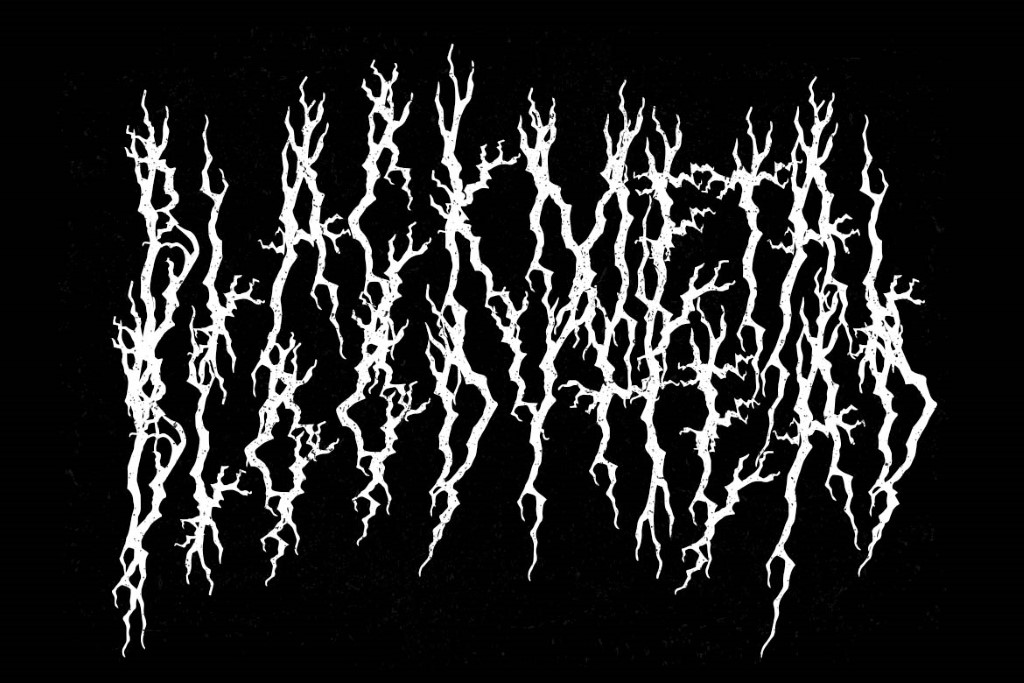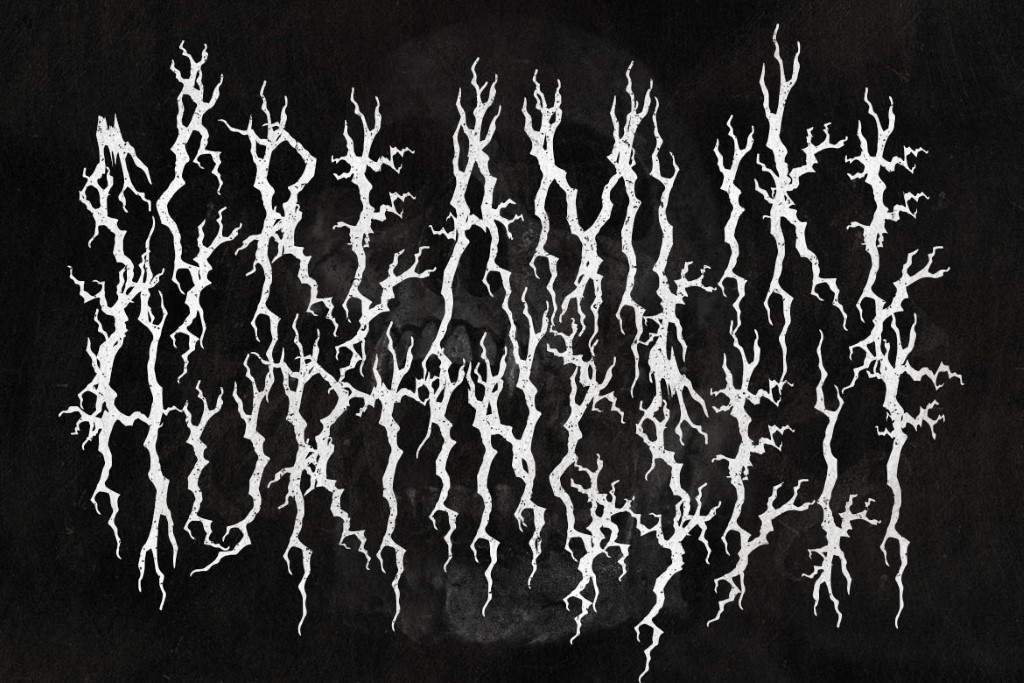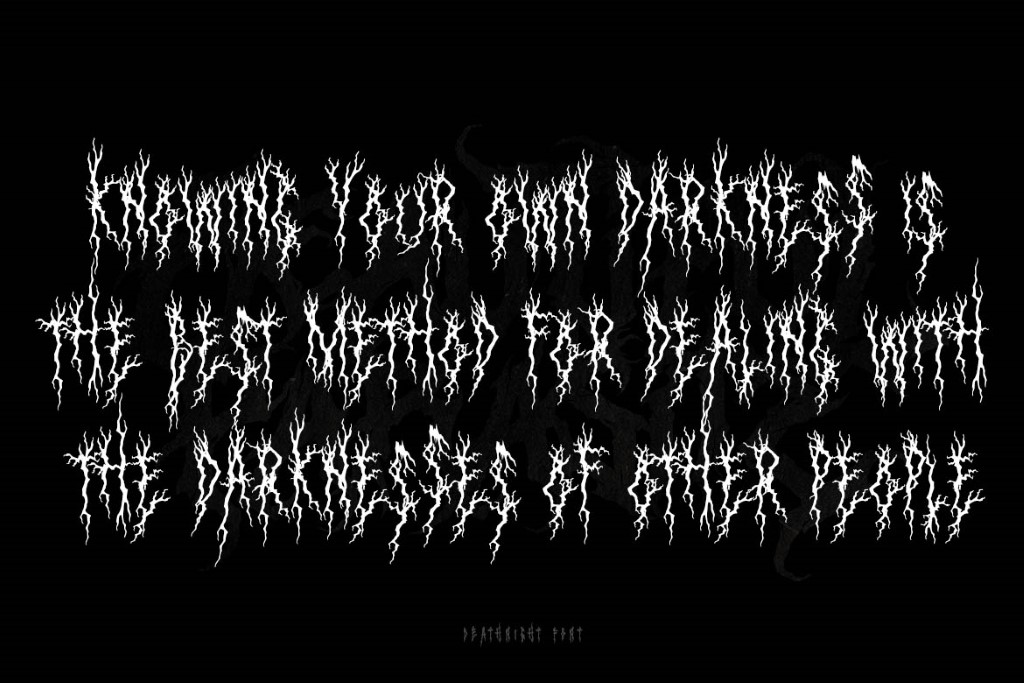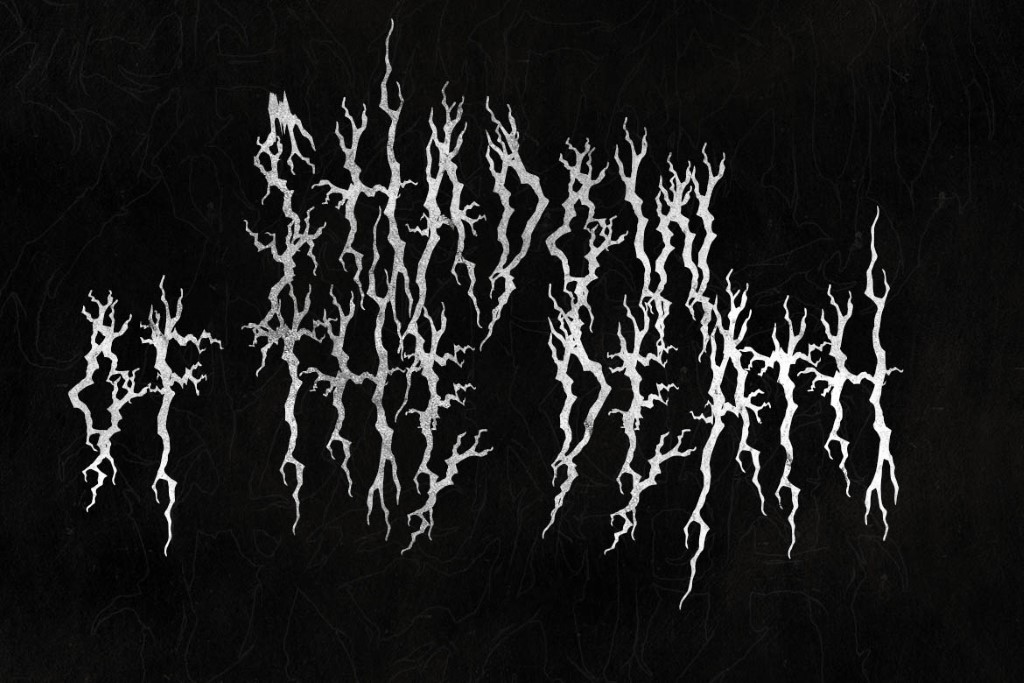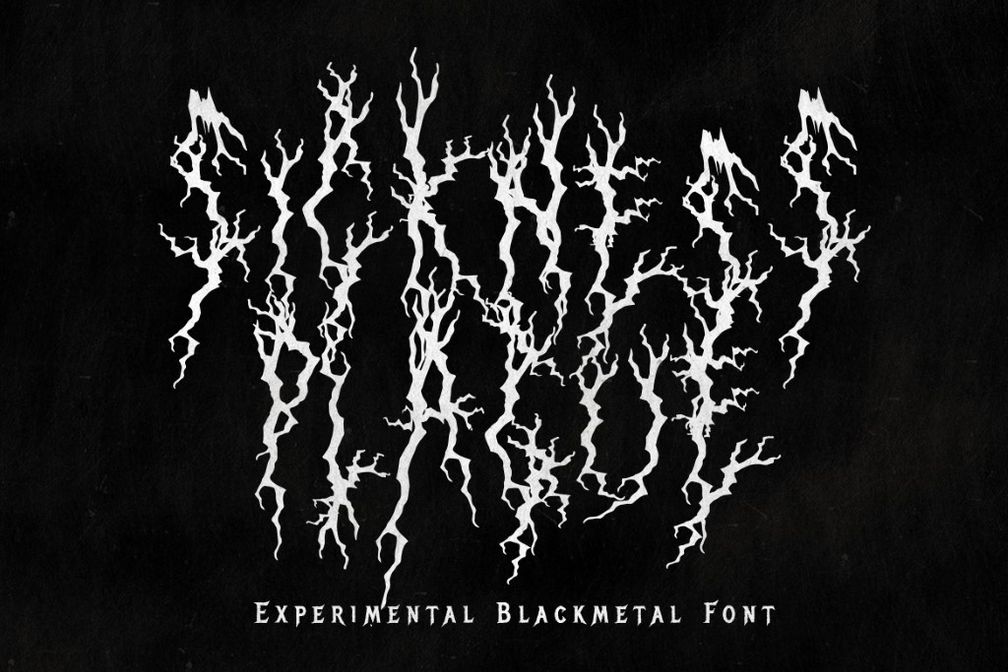
Sickness Plague
Sickness Plague is awesome death metal font. Comes with All Uppercase characters. This font is great for any gore/metal/brutal design purposes. Sickness Plague is awesome for your logo, your band, for merchandise, for clothing, and movie title/poster